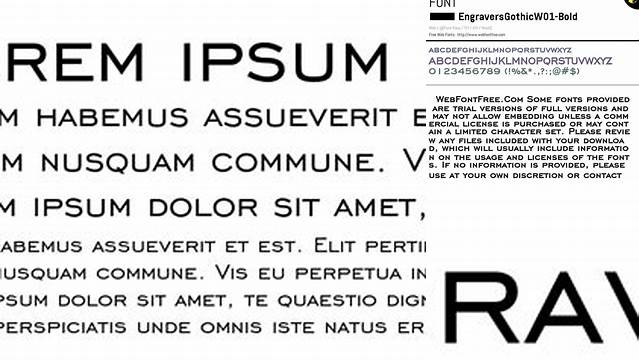
Engravers Gothic Bold Font: Free Download And Design Guide
Hey design enthusiasts! π Ever stumbled upon a font that just screams classic and bold? Today, we're diving deep into the world of the Engravers Gothic Bold font family. This typeface is a real gem, and the best part? You can snag it for free! That's right, we're talking about a free download that can seriously level up your design game. Whether you're a seasoned pro or just starting out, understanding and utilizing fonts like Engravers Gothic Bold can make a massive difference in how your work looks and feels. So, let's get started!
What is Engravers Gothic Bold?
Engravers Gothic Bold is a striking, clean, and strong sans-serif font that exudes a sense of authority and timelessness. It's a typeface that doesn't mess around. Its sharp lines and heavy weight give it a commanding presence, making it ideal for headlines, titles, and any design element where you want to grab immediate attention. Think about those vintage posters, classic book covers, or even modern branding that needs a touch of retro charm. Engravers Gothic Bold fits the bill perfectly. The font's design is rooted in the tradition of engraving, which is why it has that distinct, almost carved-in-stone aesthetic. It's not just a font; it's a statement. The bold version of the font is particularly useful. Itβs designed to be readable even when scaled down. It is highly versatile and can be used in many different contexts. It is known for its readability and its ability to make a strong visual impact. The Engravers Gothic Bold is an excellent choice if you want to convey a message of strength or confidence. The Engravers Gothic Bold has a classic design and is often associated with traditional values. The versatility of the Engravers Gothic Bold makes it suitable for both print and digital media. Engravers Gothic Bold is a great choice for headlines and titles. This font is perfect for making a strong impression with its strong presence. Its ability to capture attention makes it ideal for any design. Overall, Engravers Gothic Bold is an amazing font.
Design Applications and Usage
So, you've got the font, and now the fun begins! Engravers Gothic Bold is incredibly versatile and can be applied in many different design contexts. Its inherent boldness makes it perfect for attention-grabbing headlines, titles, and subheadings. This is particularly true for posters, flyers, and any visual materials that aim to capture immediate attention. But don't think its use is limited to just large text. Here are some ideas on how to use it.
- Posters and Flyers: Make your message POP! Use it for the main title to create a striking visual impact. Its boldness ensures that your message is seen.
- Logos and Branding: This font's strength can lend a professional and classic feel to logos. It's perfect for brands that want to convey trustworthiness.
- Website Headings: Draw in your website visitors with headlines that command attention. This is especially effective on landing pages and articles.
- Print Materials: Whether it's book covers, magazines, or even event invitations, Engravers Gothic Bold makes a fantastic impression. It's great for titles and headings, ensuring readability and a strong visual hierarchy.
Remember to consider the context of your design and the overall message you're trying to convey. This is not the only design factor to consider, and the right pairing of font and design elements is the key to effective design. For instance, in some cases, using a lighter font as a subtitle or a body of text can help create a sense of contrast, which will create more visual interest. Overall, its application is only limited by your creativity. This font makes it a fantastic choice.
Tips for Effective Use
Alright, guys, now for some pro-level tips on making the most of Engravers Gothic Bold! Using a font like this isn't just about picking it; it's about using it smartly. First, always keep in mind readability. While the bold version is very legible, ensure your text size is appropriate for its intended use. Don't cram too much text into one line; it can make the text overwhelming.
- Pairing with Other Fonts: Don't be afraid to combine Engravers Gothic Bold with other typefaces. Consider pairing it with a clean, easy-to-read sans-serif or a classic serif font for body text. The key is balance; you don't want the combination to feel chaotic.
- Color Considerations: The color of your font can drastically change its impact. A bold font like Engravers Gothic Bold often looks great in stark black or white, especially against contrasting backgrounds. You can also play with different colors to match your brand or design aesthetic.
Conclusion: Unleash Your Creativity with Engravers Gothic Bold
There you have it, folks! A complete guide to the Engravers Gothic Bold font family. This font is an outstanding option for designers of all levels, especially when looking for a font with a bold and classic look. With its accessibility, versatility, and timeless appeal, it's a fantastic asset to any designer's toolkit. Now, go forth and create! With this amazing free font, your design game can reach new heights. Happy designing, and don't forget to have fun!